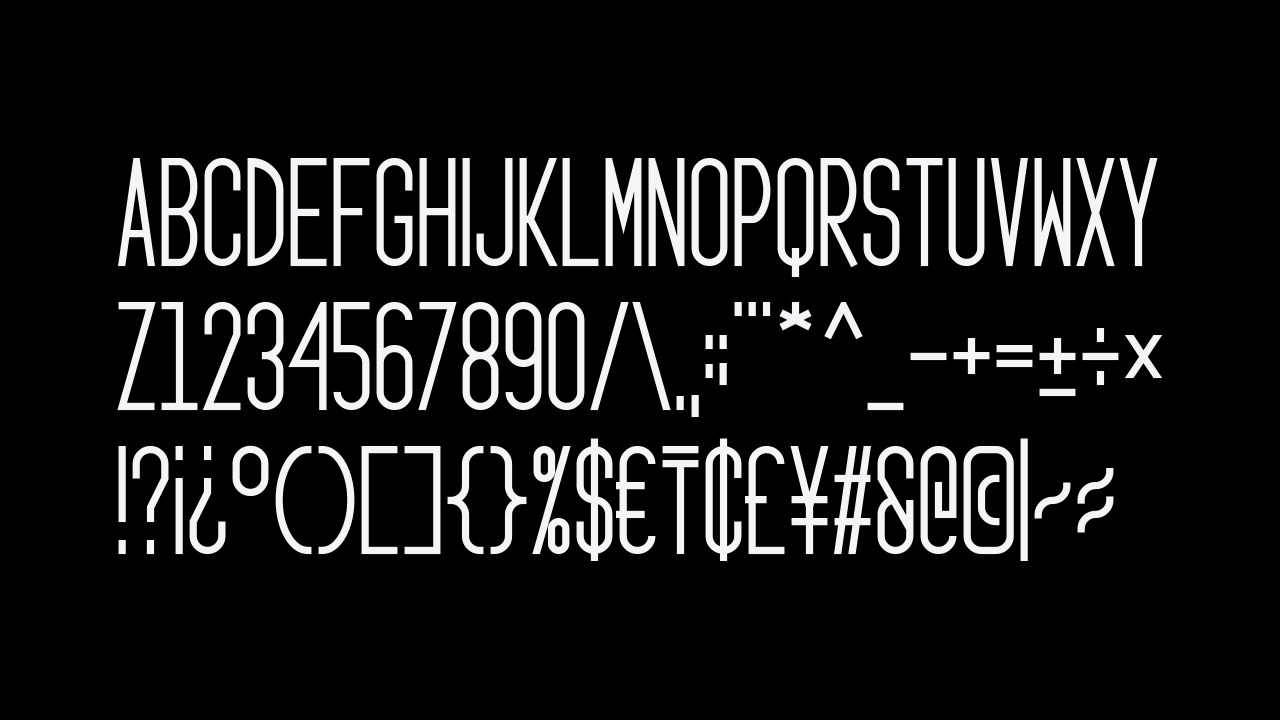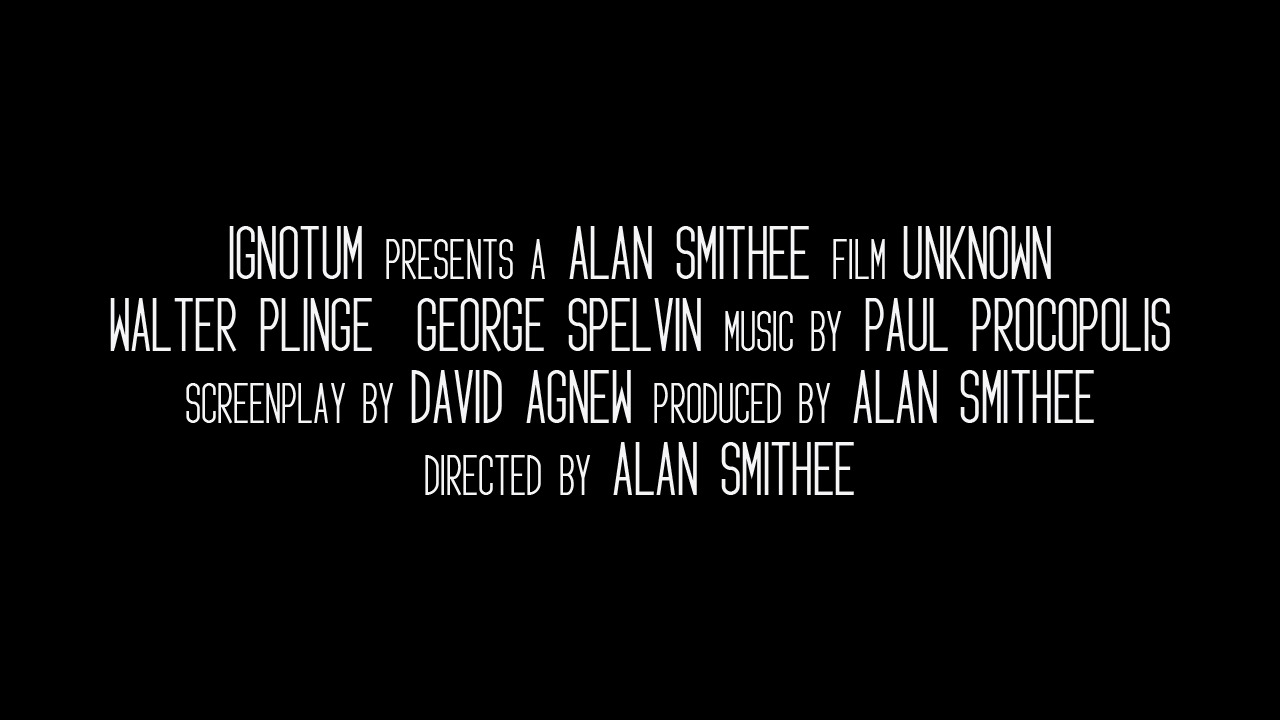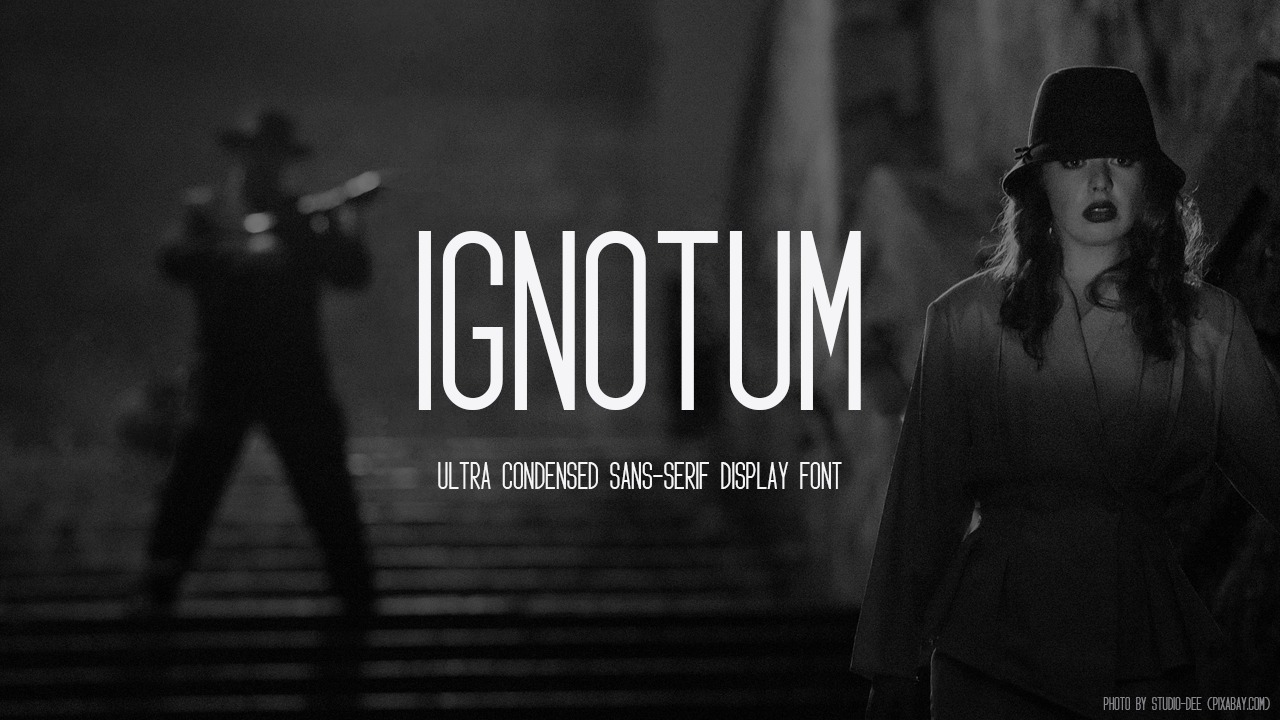
Ignotum Display Font
This is a simple and narrow lettered sans serif font. It’s designed and shared by GGBotNet. A contemporary typeface with a minimalist and modern approach. It is suitable for any branding, product packaging, invitation, quote, t-shirt, label, poster, logo that you wish to develop.